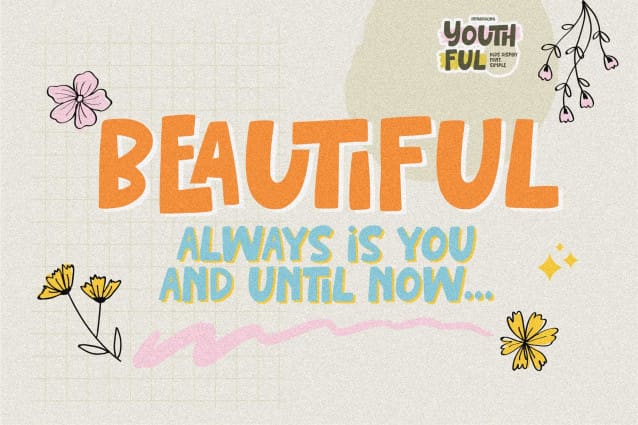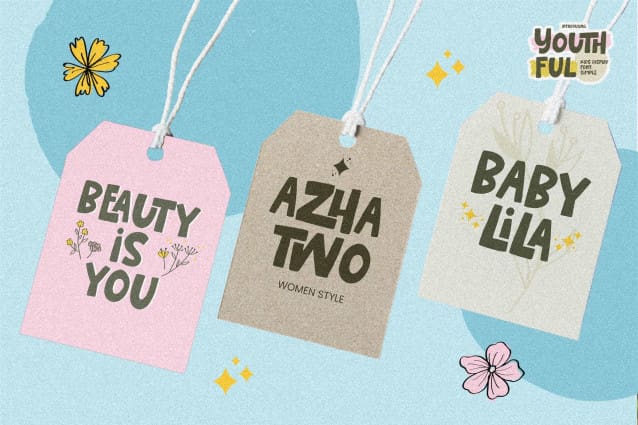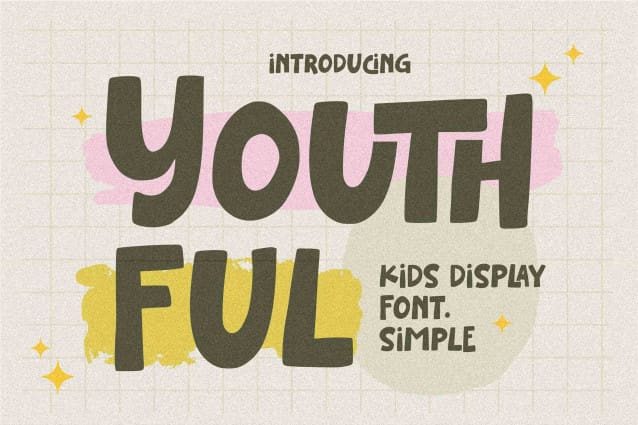
Youthful Display Font
Youthful Display Font, This is Kids Display Font Simple. Are cheerful, easy-to-read typefaces designed to capture a youthful, playful vibe. This font is perfect for making a strong statement in your designs.
Add the bold and authentic character of this Font to your next project and capture the essence of the minimalist aesthetic.